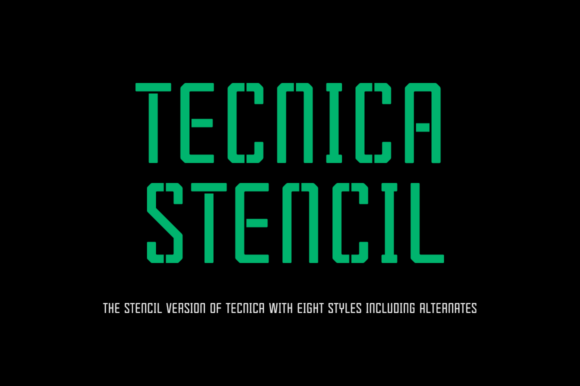
Unleash the Power of Expression: Embark on a Typographic Journey with Tecnica Stencil Family Font
Dive into the world of visual communication and let your creativity soar with the Tecnica Stencil Family Font. This captivating font family, meticulously crafted by the renowned Graviton Font Foundry and the brilliant mind of Pablo Balcells, is an artistic masterpiece that blends timeless elegance with a contemporary twist. Designed in 2014, Tecnica Stencil has captivated the hearts of designers and typography enthusiasts worldwide, leaving an indelible mark on the world of design.
Experience the versatility of Tecnica Stencil, a sans serif font family that comes in eight distinct styles, each possessing a unique charm and purpose. The four "Stencil 1" styles flaunt a narrow stem, ideal for large-scale printing on rigid materials, demanding attention from afar. In contrast, the four "Stencil 2" styles boast a wide stem, perfect for small-scale printing on delicate materials, adding a touch of refinement and elegance.
With Tecnica Stencil, you'll discover a font family that transcends the boundaries of ordinary typography. Its carefully considered design and meticulous attention to detail make it a versatile choice for a wide range of creative projects, including branding, packaging, posters, headlines, and editorial design. Whether you seek to create a bold statement or convey a subtle message, Tecnica Stencil has the power to elevate your designs and leave a lasting impression.
Embrace the creative possibilities and unleash your inner artist with Tecnica Stencil. Its captivating charm and undeniable versatility will transform your designs into visually stunning masterpieces. Let Tecnica Stencil be your muse, igniting your imagination and propelling your creativity to new heights.